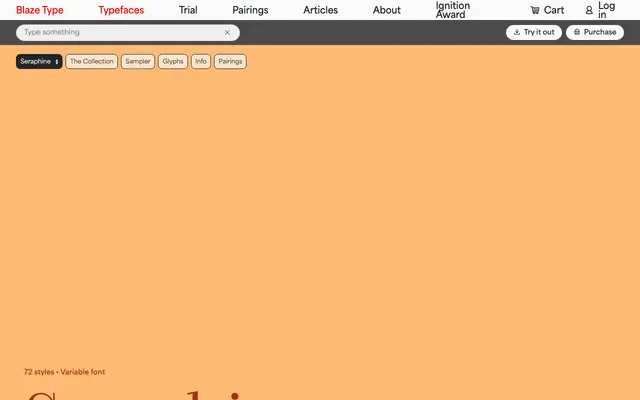
Seraphine
A 72-style serif family from Blaze Type built across four optical sizes — Caption, Text, Normal and Display — each available in nine weights with matching italics.
The family runs from Caption through to Display, with each subfamily optimised for its intended size range rather than relying on a single design stretched across scales. Nine weights from Thin to Black, each with an italic, give 18 styles per optical size. Variable font support is included across all four families, making it practical for long-form publishing and editorial systems where text and headline settings need to coexist coherently.
Seraphine is a serif family structured around four optical sizes — Caption, Text, Normal and Display — each tuned for its intended reading environment, suggesting a contemporary text serif with classical proportions adapted across scales.